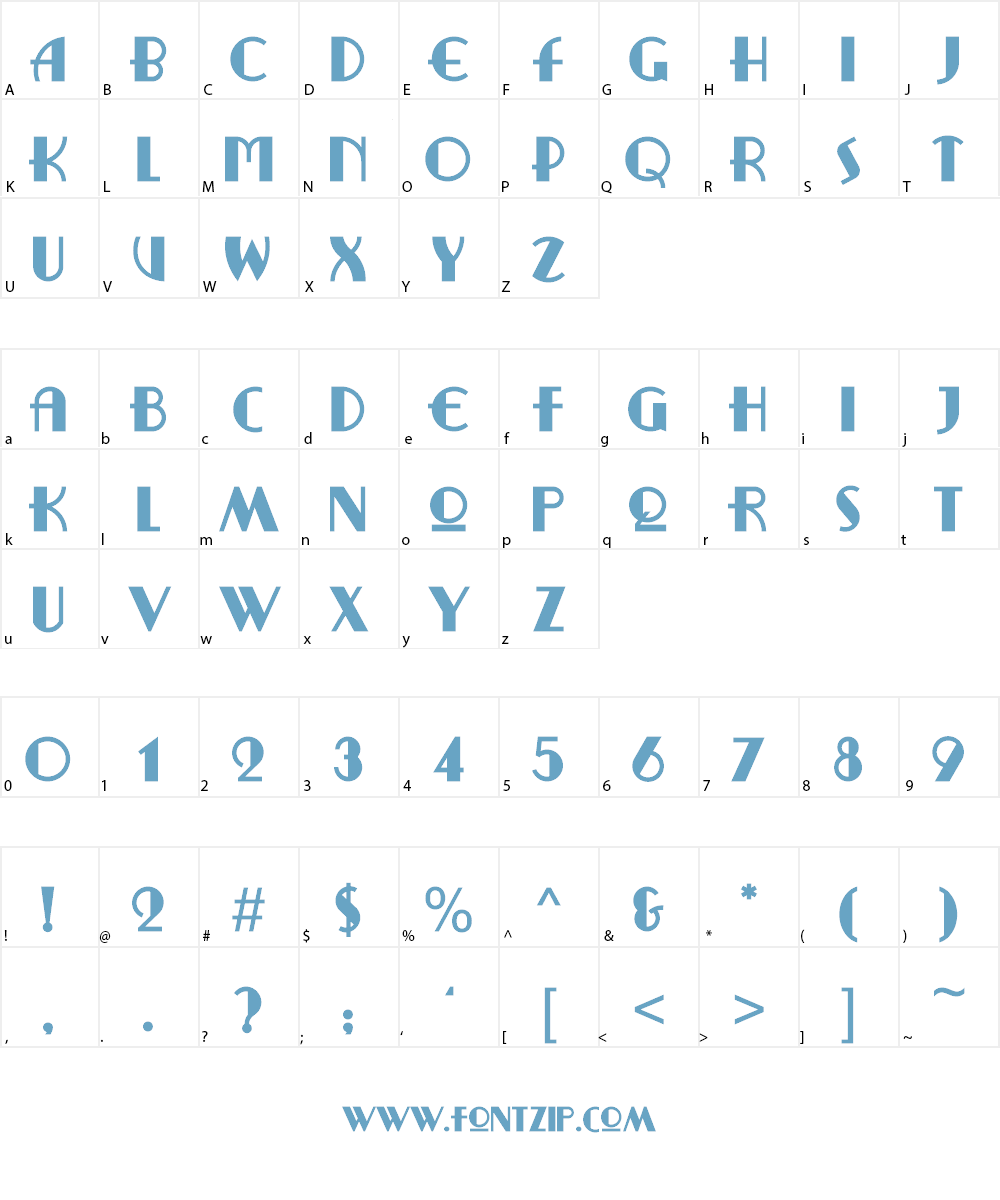
This is a complete re-design of one of my earliest fonts, based on that old Pushpin favorite Busorama. All the letterforms have been redrawn, and an alternate caps “lowercase” has been added.